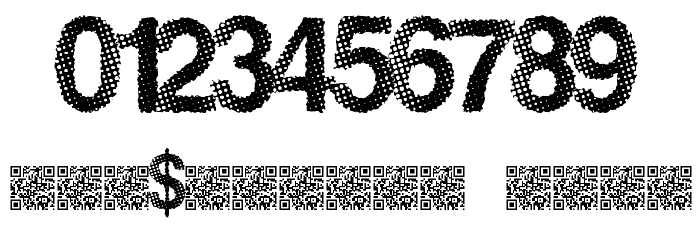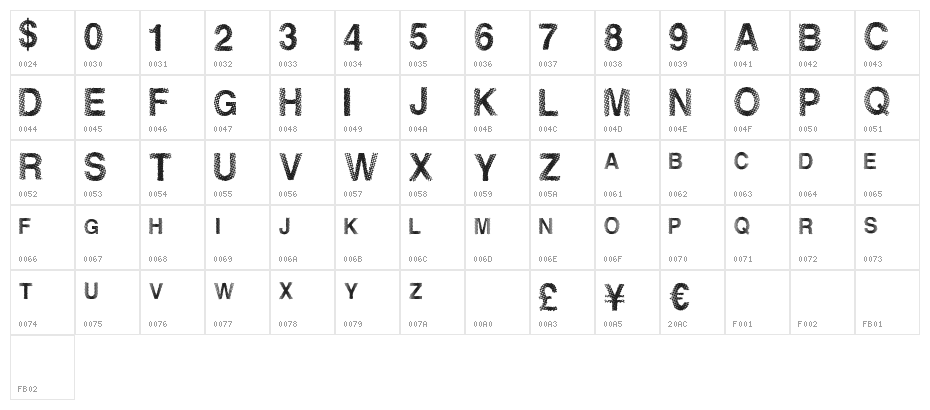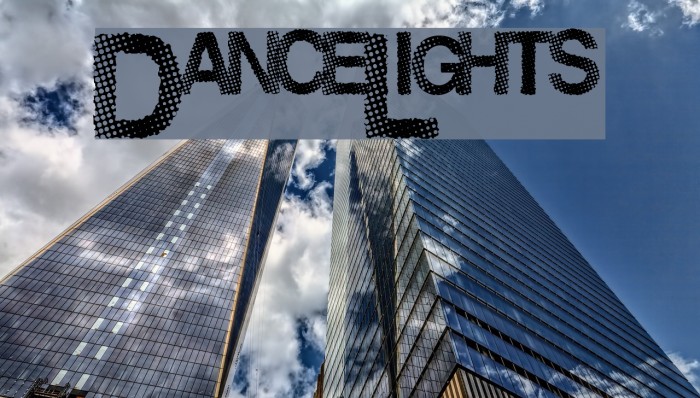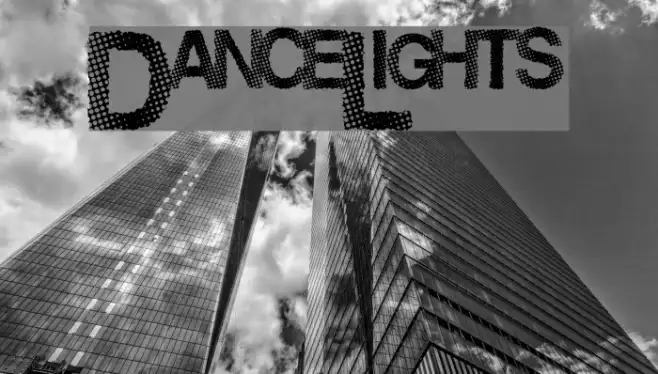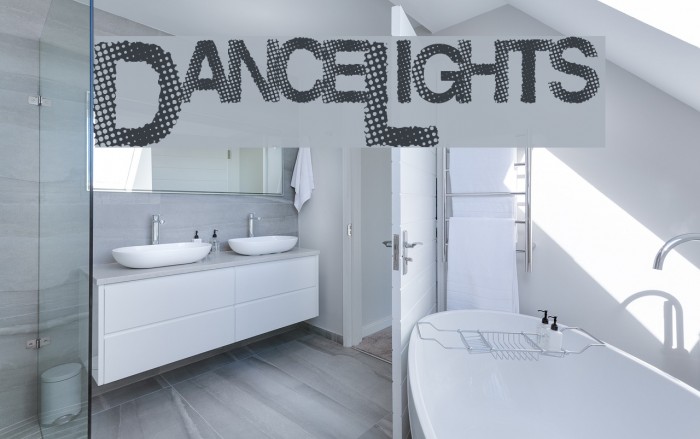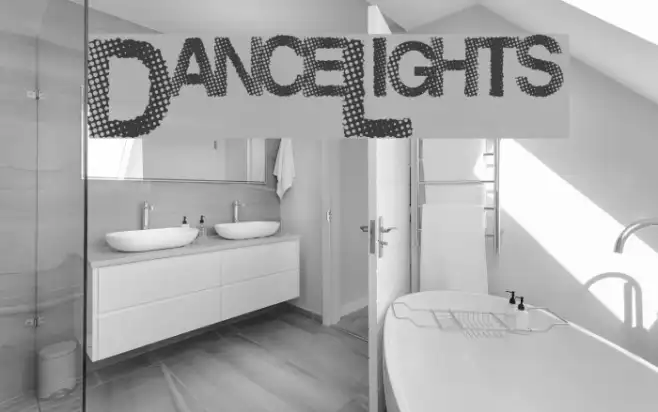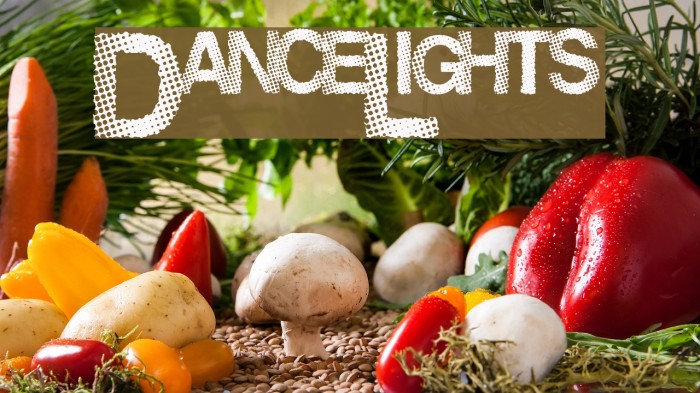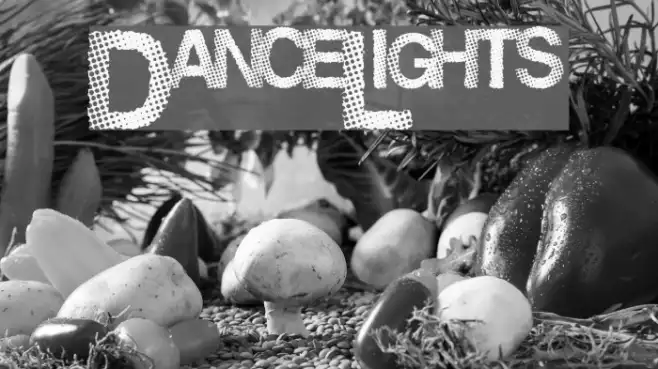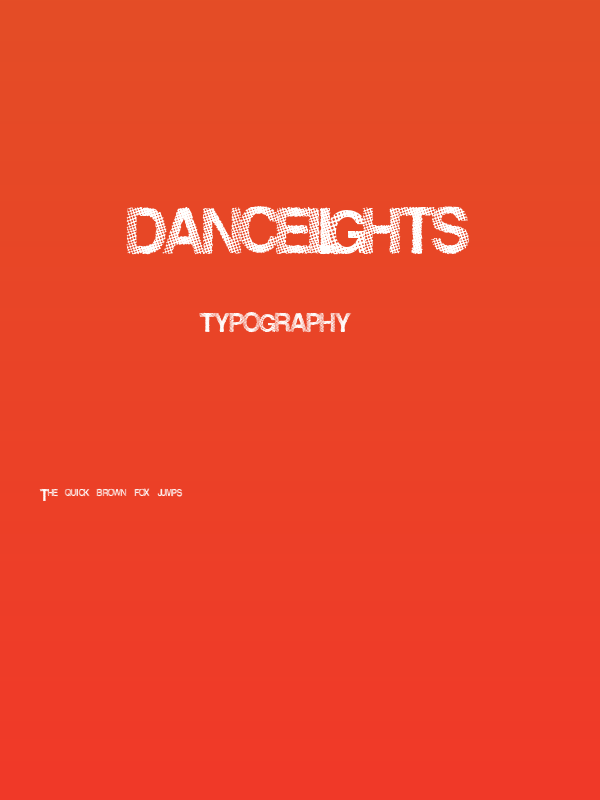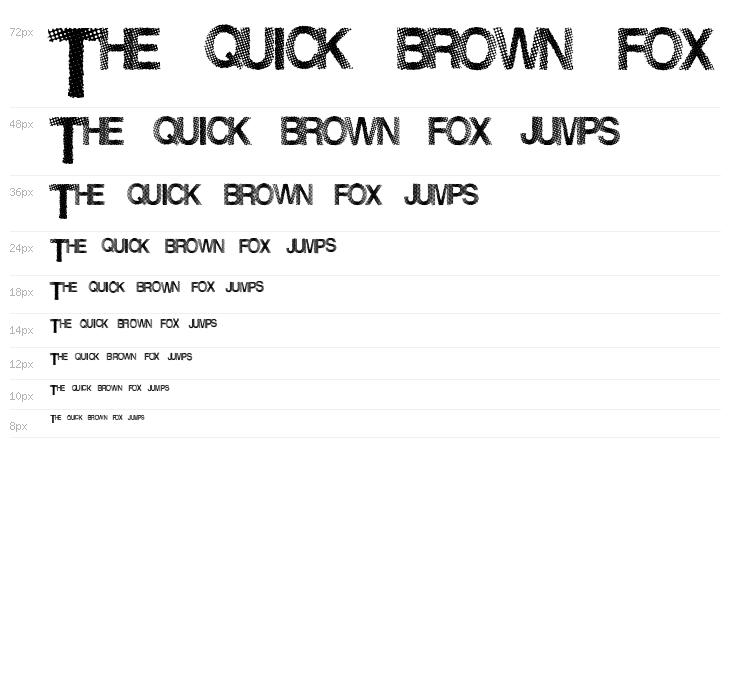
DanceLights Font
DanceLights Description
This font features a unique dotted pattern that creates a dynamic and eye-catching appearance. Each character is composed of a series of dots that form the shape of the letter or number, giving it a playful and energetic feel. The font maintains a consistent weight throughout, with medium contrast between the dots and the background. The spacing between characters is normal, allowing for clear readability while maintaining its decorative style. This font is ideal for projects that require a bold and lively aesthetic, such as event posters, party invitations, or branding for entertainment-related businesses.
| Proposed Projects | Event posters, party invitations, entertainment branding, playful merchandise. |